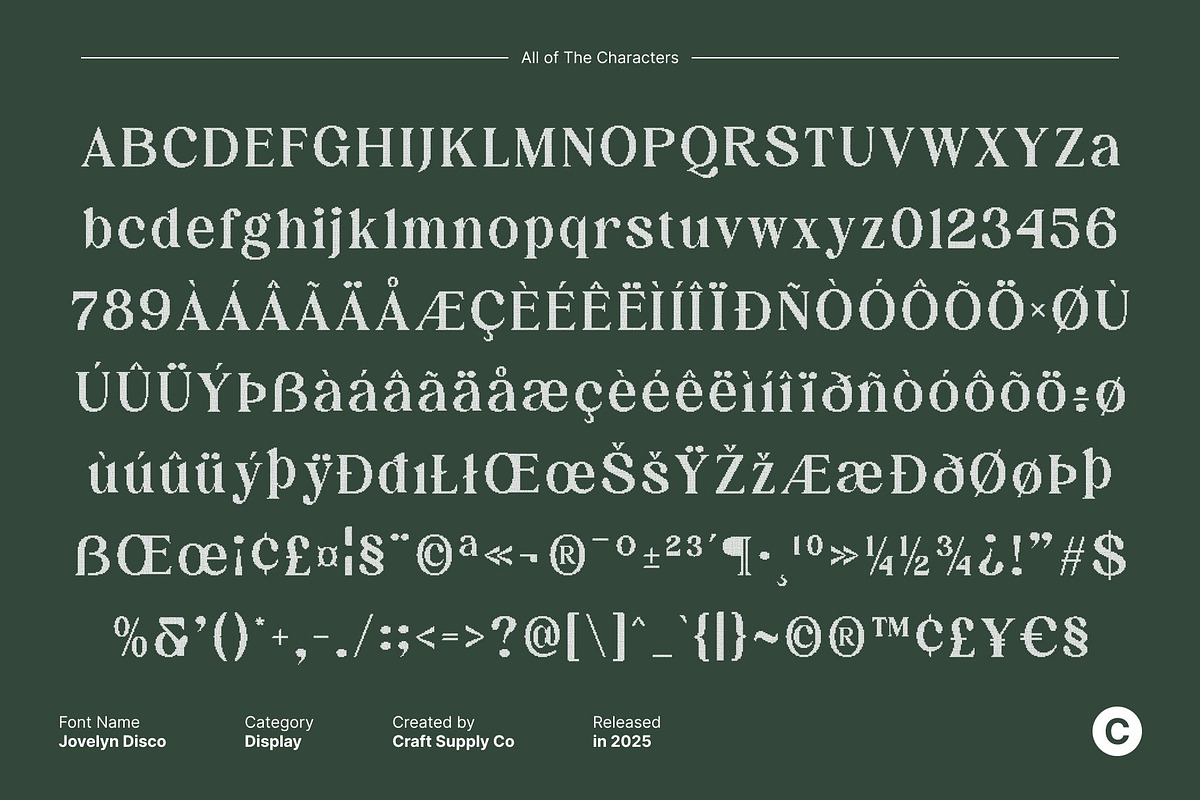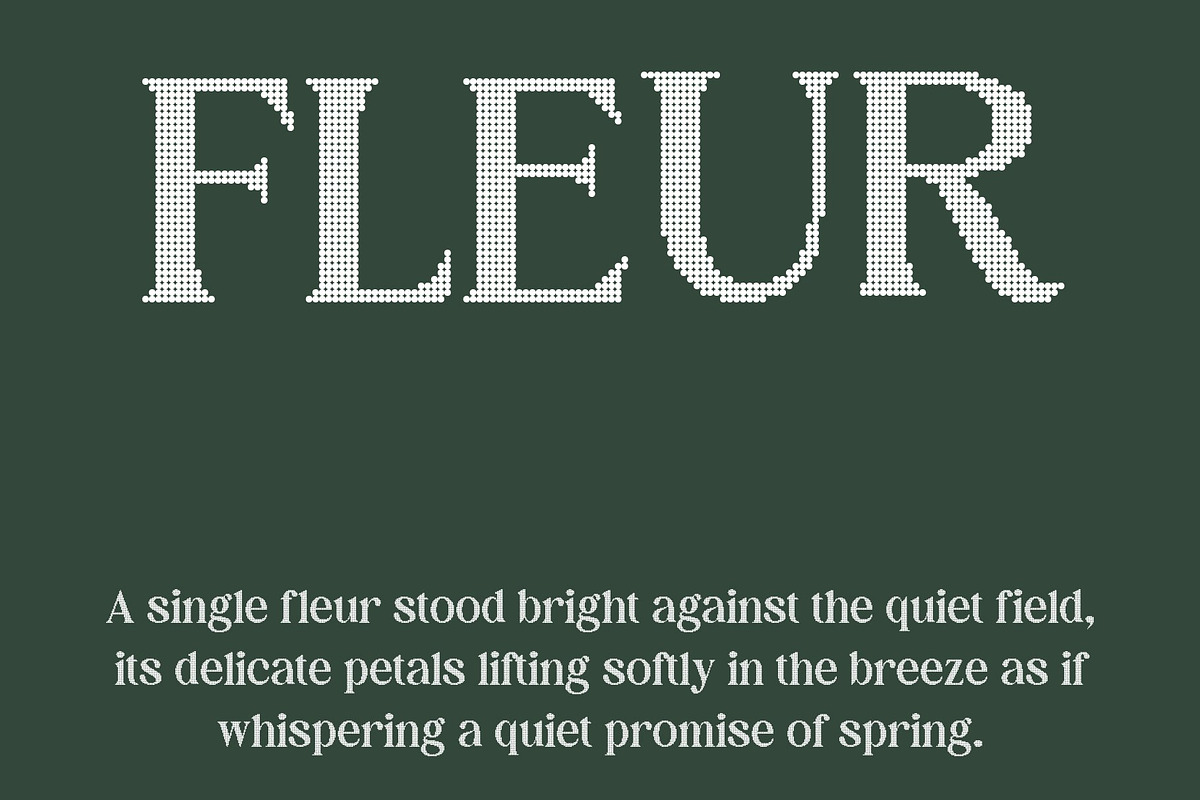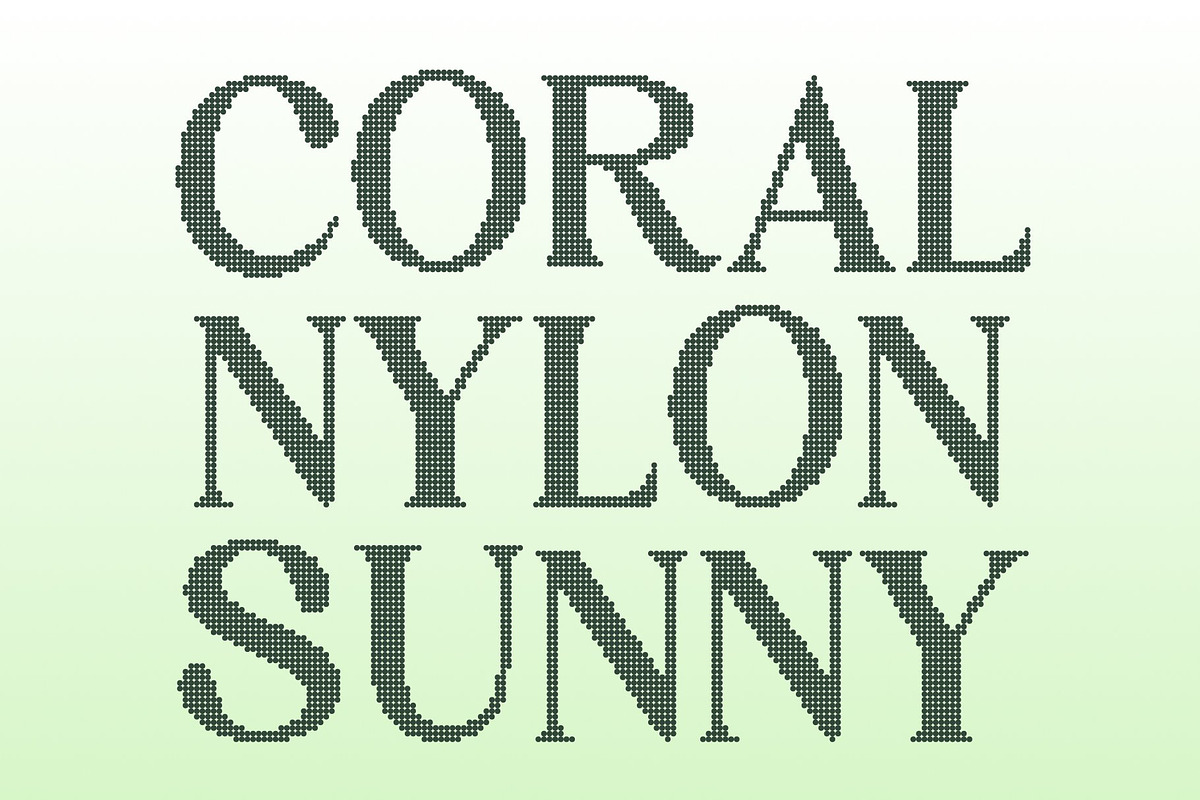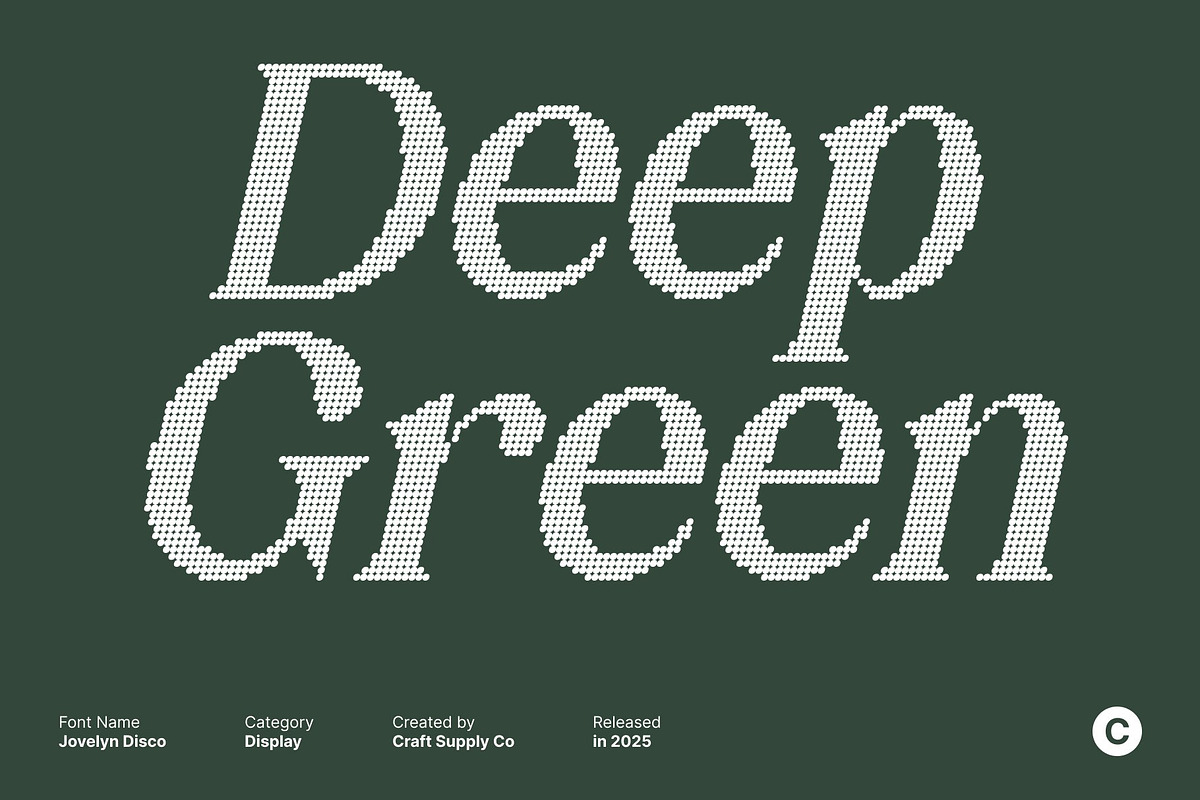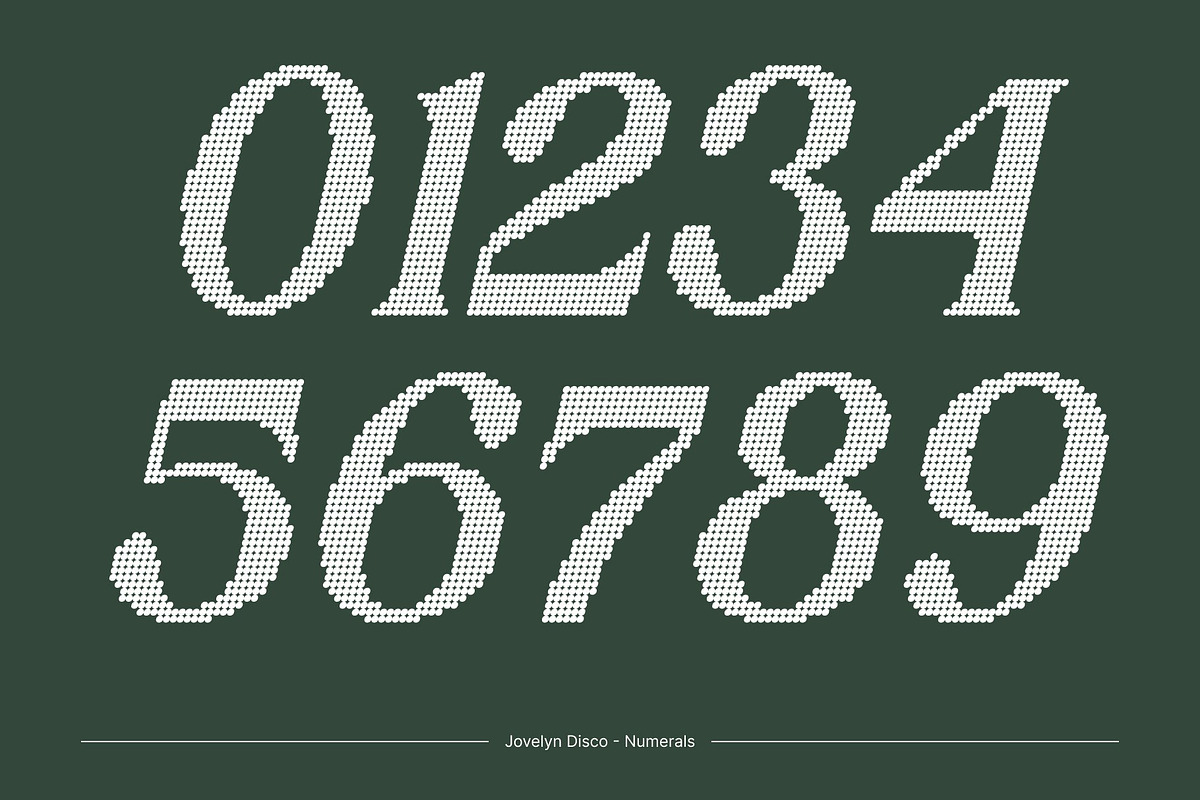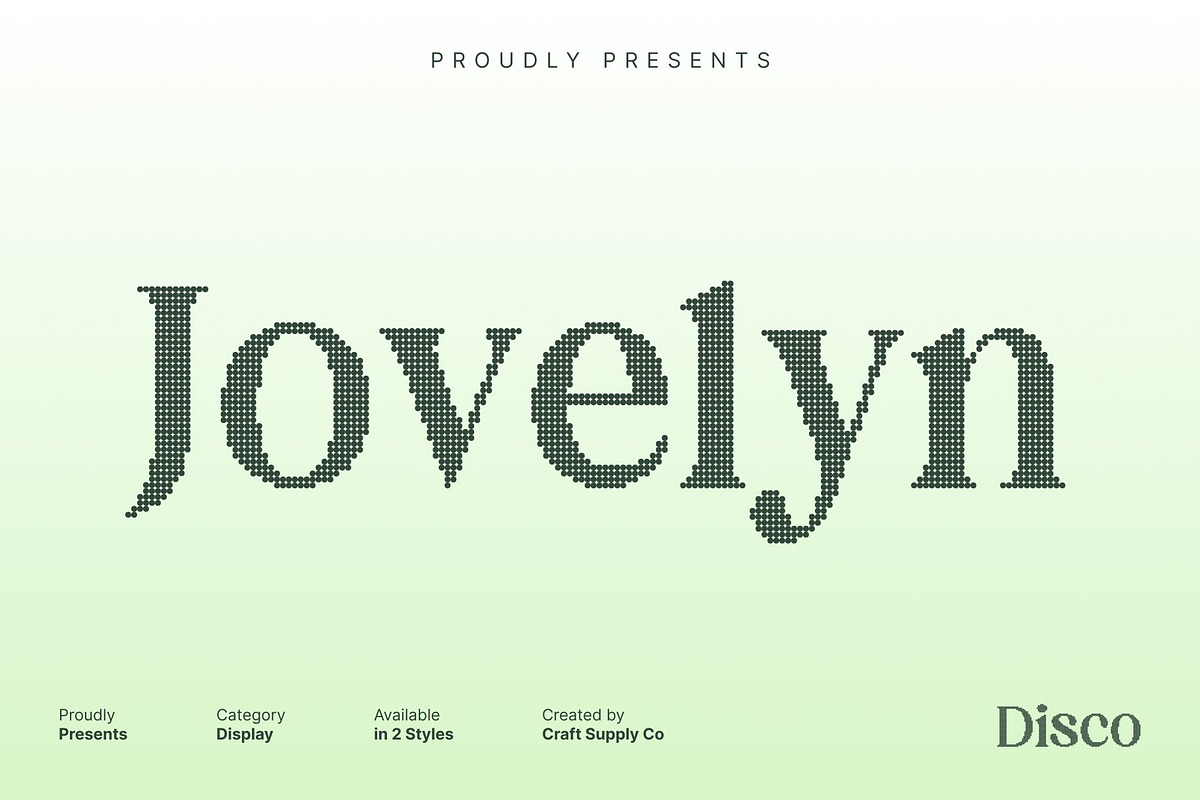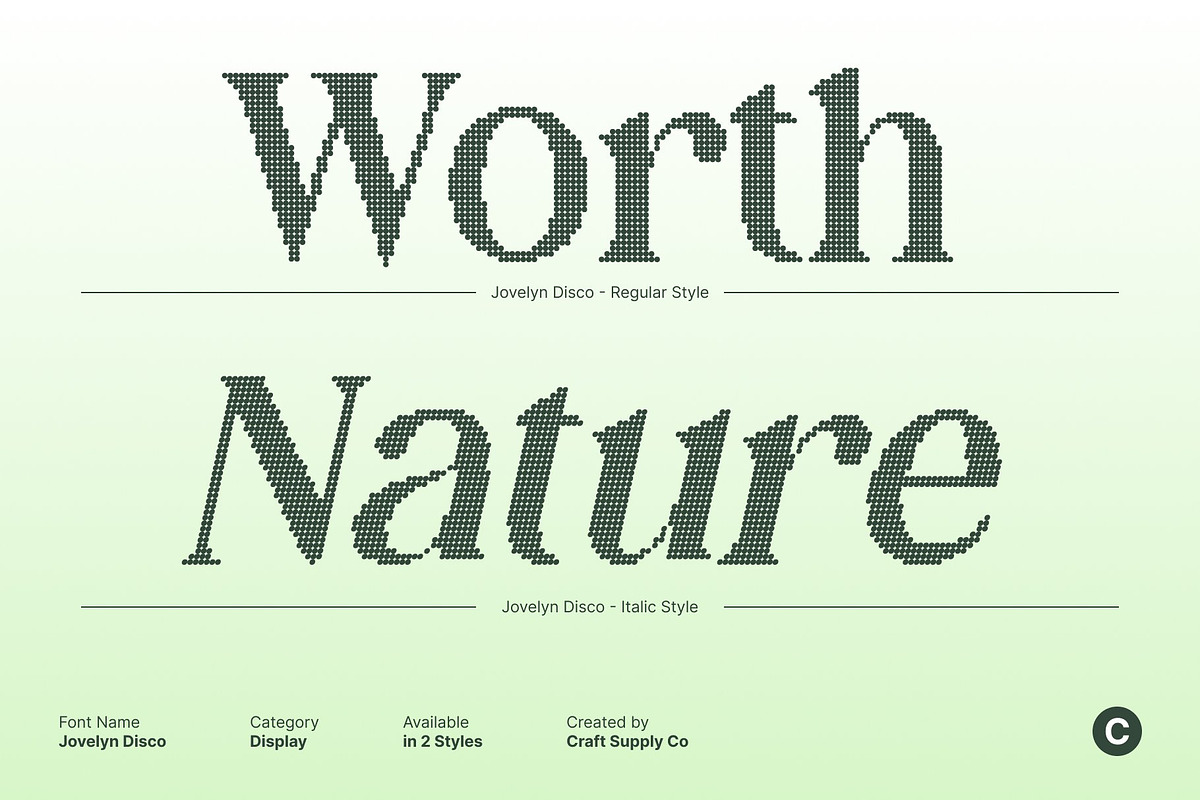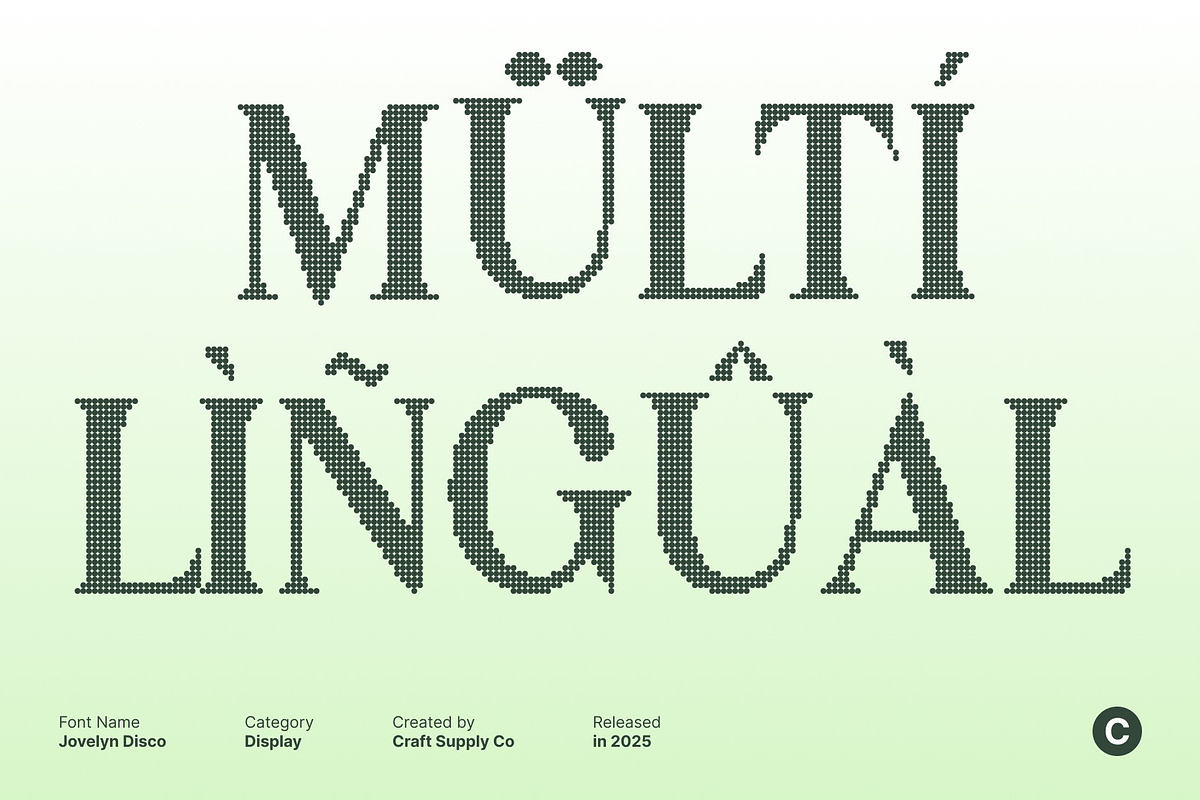
Jovelyn Disco
Jovelyn Disco – Retro Display Font with Modern Serif Flair
A Revival of Disco Energy This is a retro display serif font that brings the glamour, rhythm, and shimmering excitement of the disco era into modern design. With its bold curves, stylish detailing, and confident presence, this font captures the electric atmosphere of vintage nightlife where lights flash, music pulses, and everything feels alive.
Modern Serif Style with Dynamic Rhythm Blending a classic serif foundation with playful retro energy, this font features letterforms that dance with character. Its curves flow smoothly, creating a natural cadence that feels both nostalgic and contemporary. The thoughtful proportions and rhythmic strokes help each character reflect the iconic disco aesthetic while maintaining clarity and sophistication.
Perfect for Nostalgic and Celebration-Focused Designs Ideal for projects that need excitement, bold presence, and a retro punch, this font thrives in party posters, music-themed layouts, nostalgic branding, and stylish headlines. Whether you’re designing event flyers, merchandise, social media graphics, or editorial titles, this font brings a celebratory vibe that instantly draws attention and elevates the visual impact.
Versatile, Expressive, and Ready to Shine This font combines expressive style with practical usability, making it suitable for modern designers who want retro charm without compromising readability. Its unique blend of vintage flair and contemporary polish ensures it shines effortlessly across digital and print media.